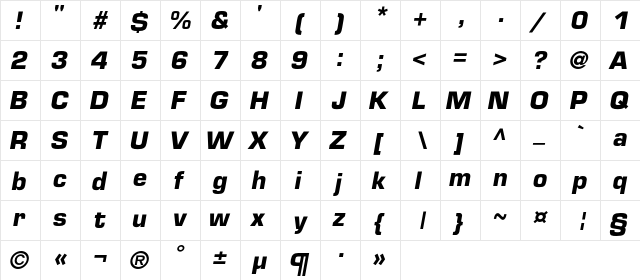
EuropeC Bold Italic Font Preview
EuropeC Bold Italic
Design Context for EuropeC Typeface
EuropeC is a composed and adaptable typeface that performs quietly and consistently across a wide range of design contexts. The slanted form adds forward momentum and visual energy. Its bold stroke weight gives it real presence on the page.
Pro Tip: Try EuropeC for annotation and caption copy alongside an upright companion — the contrast in angle creates a dynamic but ordered typographic system.